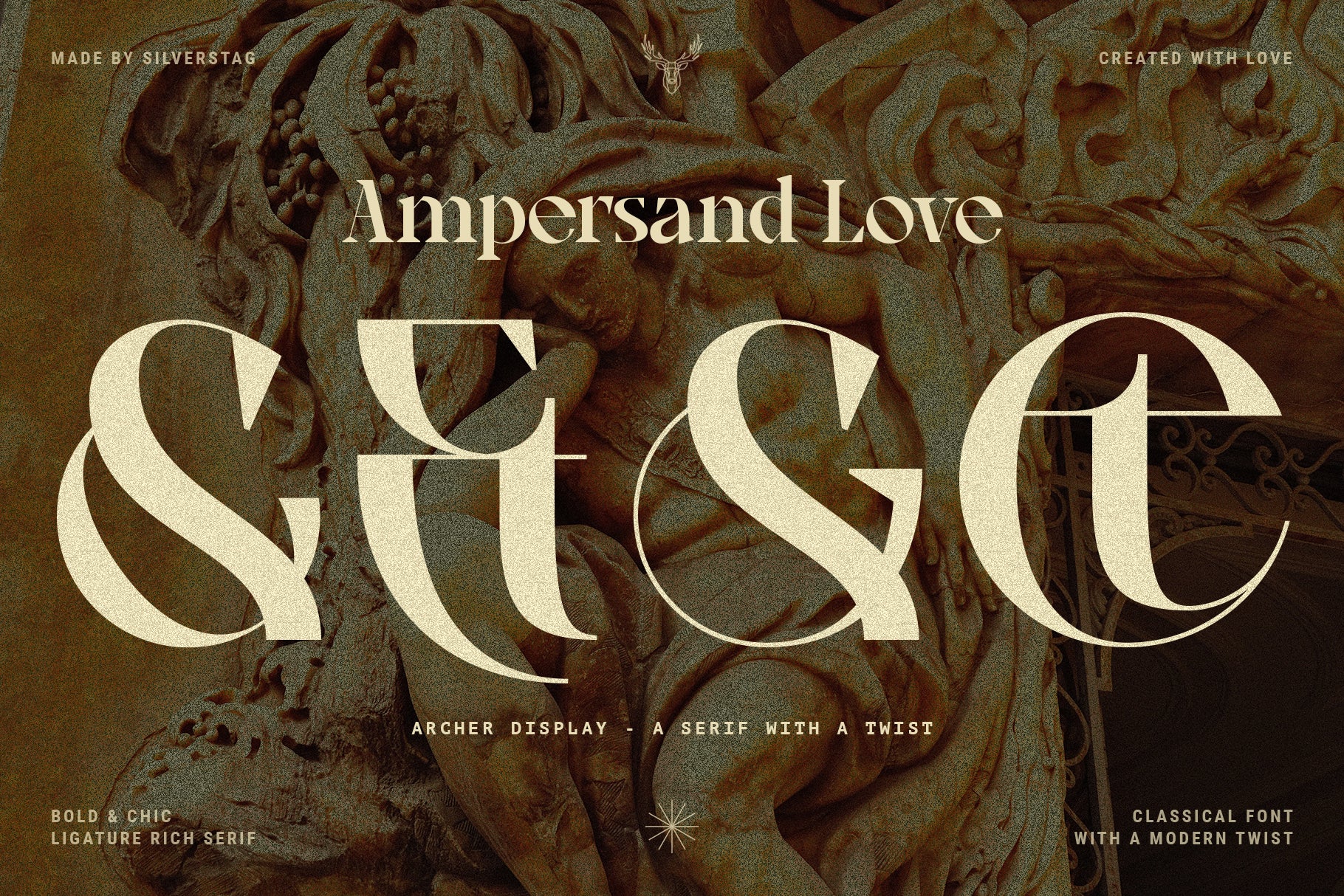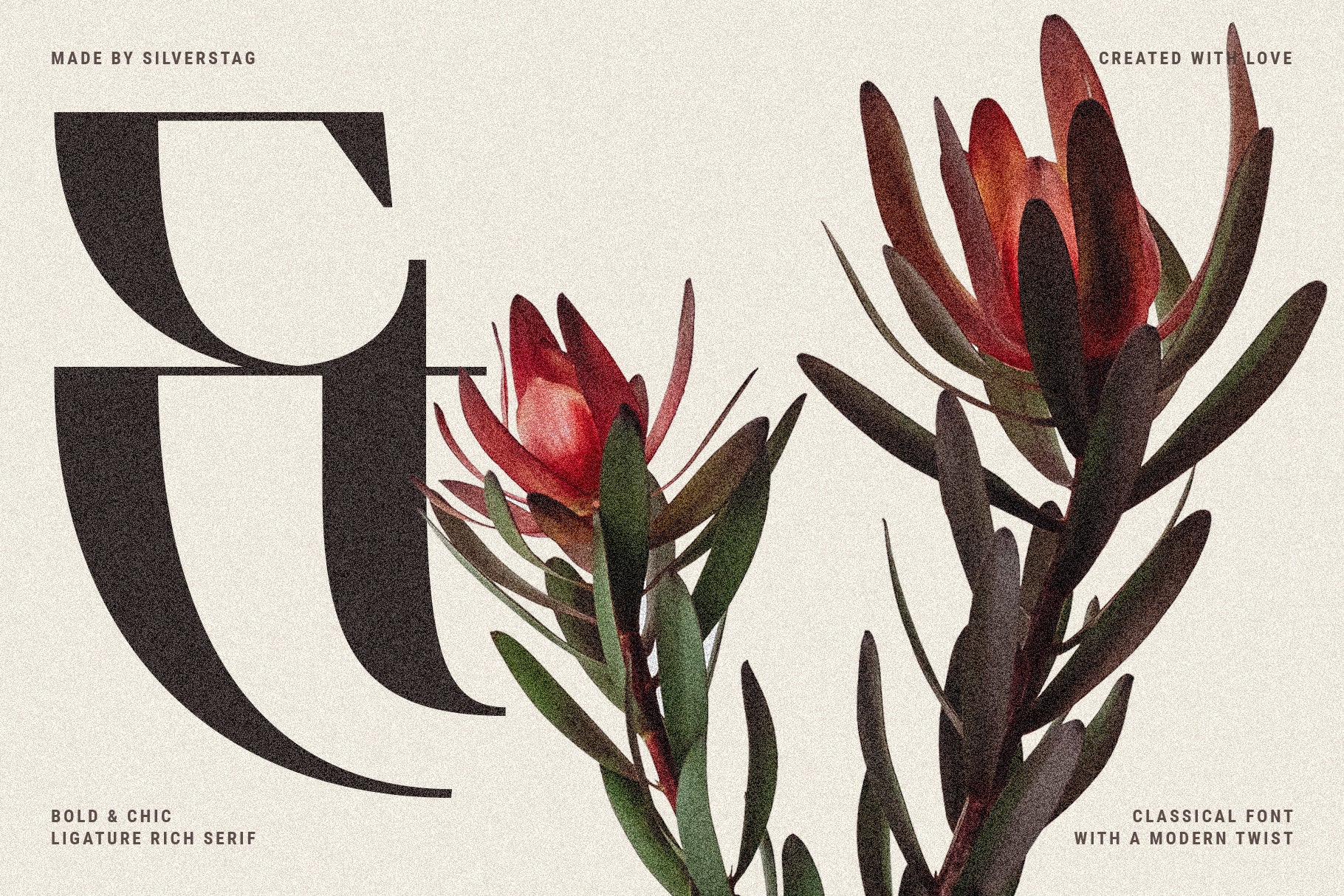
Archer Display - Ligature Serif Font
Archer Display is a high-contrast serif font that blends classical form with modern refinement. Designed with dramatic serifs, elegant proportions, and over 70 custom ligatures, it’s perfect for designers who want to evoke timeless beauty while adding a touch of creative edge.
While rooted in tradition, Archer Display plays with...
Archer Display is a high-contrast serif font that blends classical form with modern refinement. Designed with dramatic serifs, elegant proportions, and over 70 custom ligatures, it’s perfect for designers who want to evoke timeless beauty while adding a touch of creative edge.
While rooted in tradition, Archer Display plays with stylistic surprises—reimagined letterforms, four distinct ampersands, and graceful alternates give this serif a fresh, contemporary voice. Use it to elevate branding, editorial layouts, packaging, or digital design with a sense of depth, character, and artistry.
With full multilingual support covering over 90 languages, Archer Display is built for global communication and design versatility. Whether you’re creating a heritage-inspired logo, a sophisticated magazine spread, or a modern identity with historic undertones, this font helps you bridge the past and present with finesse.
Archer Display "t" ligature in white inside a circular mark, over a dried lily on a warm grey background.
"Chevalier — French Swimwear Collection 2024" printed on crossed ribbons in Archer Display, over a swimwear photo — branding mockup.
"Noëlie" magazine cover set in Archer Display, with an arched black-and-white portrait of a curly-haired woman — magazine mockup.
World cities — Madrid, London, Paris, Amsterdam, Barcelona, Berlin, Vienna, New York — in Archer Display with red and cream weight contrast.
"Coraline — your perfect flower shop" set in Archer Display over a golden floral background — logo and brand mockup.
"Avant-Garde No.09 Cedarwood" candle and box set in Archer Display with a botanical inset — product packaging mockup.
The word "tiffity" shown extra-large in black Archer Display on cream, highlighting the fi and ti ligatures — type detail.
"Cacti" skincare box set in Archer Display with a botanical inset, on a pale plinth — beauty packaging mockup.
"Save the Date" envelopes set in Archer Display, fanned out in terracotta tones — wedding stationery mockup.
Wedding card "Adelle & Martin — Save the Date" set in Archer Display on blush pink — invitation mockup.
"Rose" embossed in Archer Display on a frosted glass candle, lit, on a warm backdrop — product mockup.
Archer Display uppercase specimen — the full A–Z with alternates, several glyphs highlighted in red on cream.
Archer Display uppercase ligature specimen — paired-letter ligatures (CC, GG, HA, IE and more), several highlighted in red.
Canvas tote bag printed "Synthestone" in Archer Display, on sunlit stone steps — apparel branding mockup.
Romeo and Juliet text ("O Romeo, Romeo, wherefore art thou") set in dark Archer Display on cream, with a dried tulip overlaid.
"Chloé" magazine mockup set in Archer Display — cover with a black-and-white portrait and the title repeated oversized behind.
"Charm" cosmetics box set in Archer Display with a pressed-flower graphic, in warm sunlight — beauty packaging mockup.
"Ampersand Love" — Archer Display ampersand ligatures shown large in cream over a classical sculpture; tagged a serif with a twist.
"Ravenna" branding on candle boxes in Archer Display, on a marble plinth in pink and sage colourways — product packaging mockup.
Large Archer Display "Et" ligature in black on cream, beside red protea flowers — ligature showcase.
"She" skincare editorial card set in Archer Display, over a photo of a woman in a bodysuit — beauty brand layout.
"The New Collection — Spring Summer 2023" and "Monet" set in Archer Display over a fashion photo — lookbook mockup.
"Ciara" embossed in Archer Display caps on an olive-green textured surface — debossed branding mockup.
"Luxury is something everyone deserves…" magazine spread set in Archer Display, with a black-and-white portrait.
Archer Display uppercase ligature pairs (HA, HB, OO, DC and more) in gold on navy — ligature pattern showcase.
"Romeo & Lara" wedding envelopes set in Archer Display, fanned out in blush tones — stationery mockup.
Archer Display lowercase and numerals specimen — a–z and 0–9 with alternates, several highlighted in red on cream.
Archer Display lowercase ligatures, ampersands, symbols and punctuation specimen, with several glyphs highlighted in red on cream.
Romeo and Juliet text ("O Romeo, Romeo, wherefore art thou") set in dark Archer Display on cream, with a dried tulip overlaid.
Archer Display "t" ligature in white inside a circular mark, over a dried lily on a warm grey background.
"Chloé" magazine mockup set in Archer Display — cover with a black-and-white portrait and the title repeated oversized behind.